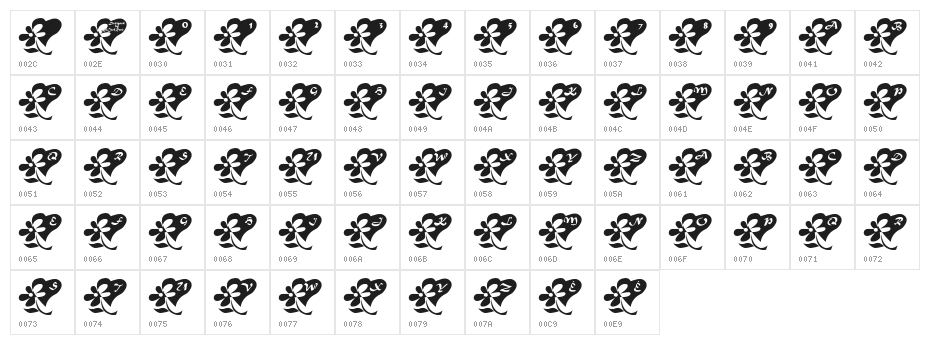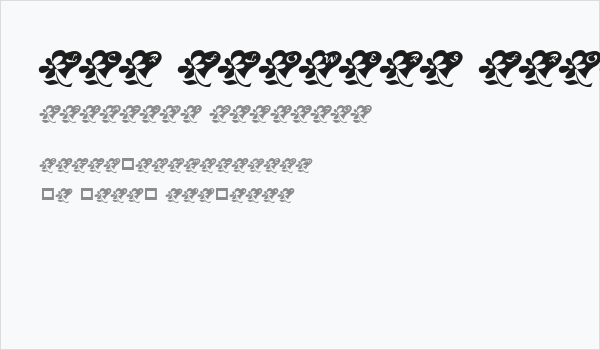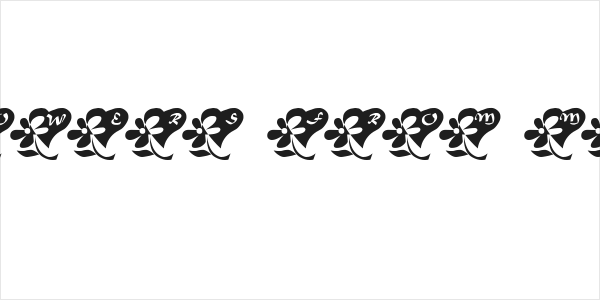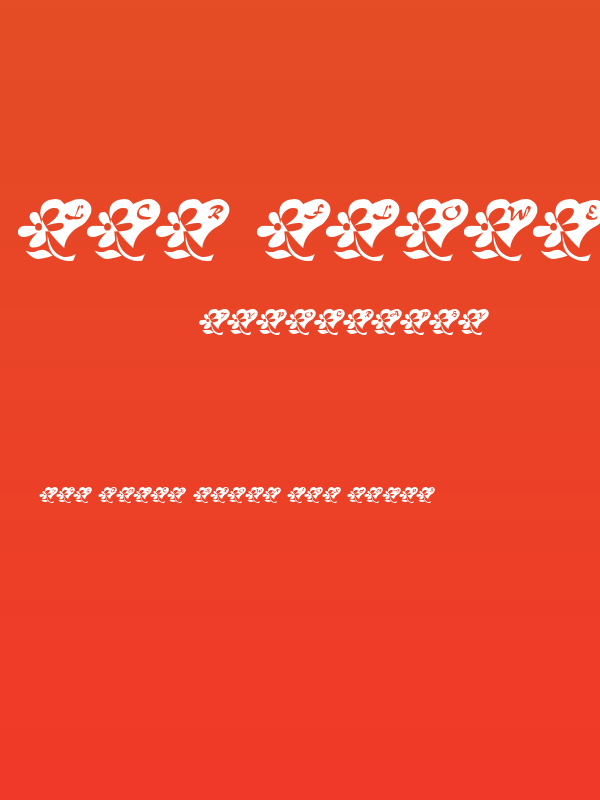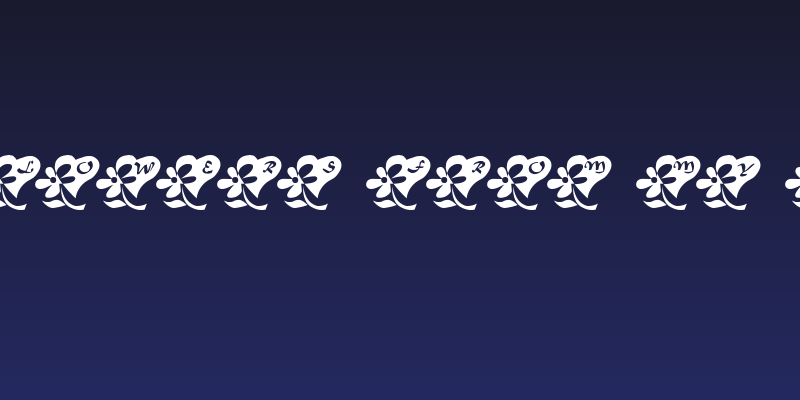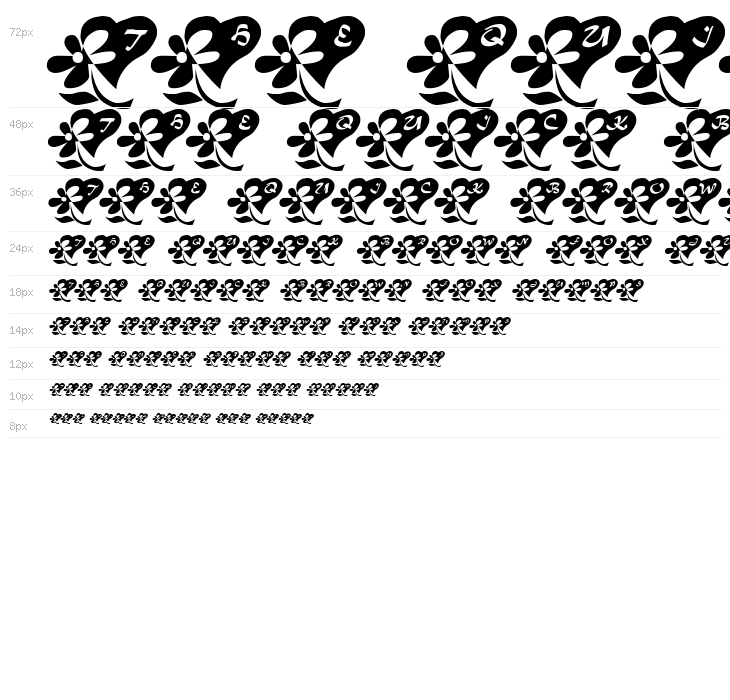
LCR Flowers From My Heart Font
LCR Flowers From My Heart Description
This decorative font features each character enclosed within a heart shape, accompanied by a stylized flower. The design is playful and whimsical, making it ideal for creative and romantic projects. Each letter and number is distinct, yet they all share the consistent theme of floral embellishment. The font's unique style makes it stand out, offering a charming and artistic touch to any text. The heart and flower motifs are bold and prominent, ensuring that the characters are easily recognizable while maintaining a cohesive aesthetic throughout the set.